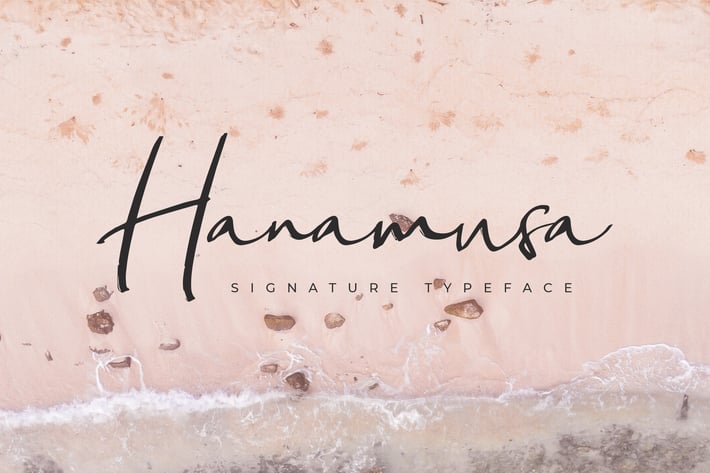
Hanamusa Signature Font
Hanamusa Signature Font that contains a lowercase, uppercase, symbol, and also support multi-language. There’s a lot of ligature in this font. Hanamusa Signature Font also comes with ligatures, stylistic alternates and many more. this font suitable for fashion, branding, catalog and other design what you want.